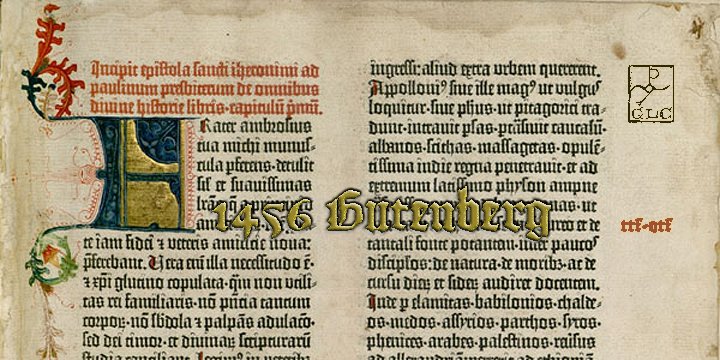
• 1456 Gutenberg
Font designed from that used by Gutenberg in Mayence to print the 42-line bible in 1456.
The original font has too many characters for a true type font. Many of them have - in 2008 - no more utility. This font include “long s”, naturally, as typicaly medieval, but also a lot of ligatures and abbreviations as “...us”, “...rum” “...s” “...r...”. A render sheet, added, help to identify them on keyboard. More…
Uses include web-site titles, posters and flier designs, editing ancient texts or greeting cards as a very decorative font... This font support easily as enlargement as small size, remaining clear and easy to read.